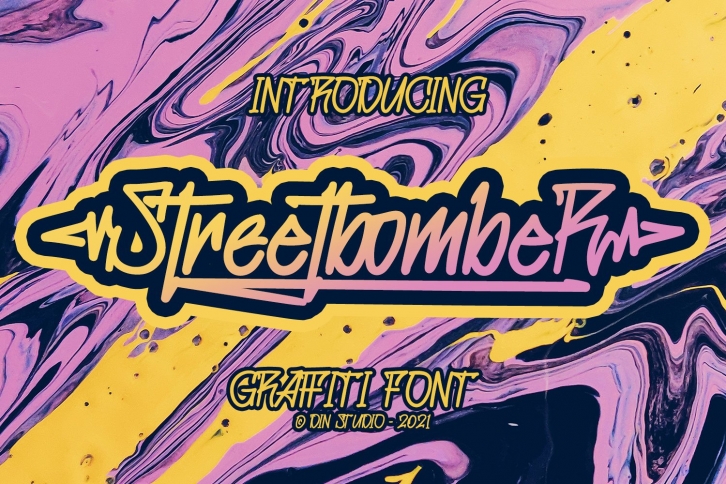
Streetbomber is a gorgeous font that was realeased on February 11, 2021. The font can be used in many style contexts and design environments. Perfect for invitations, magazines, websites, logos, and more! It was designed by Din Studio and the file size is 6.86 MB. Thanks for checking out this font!